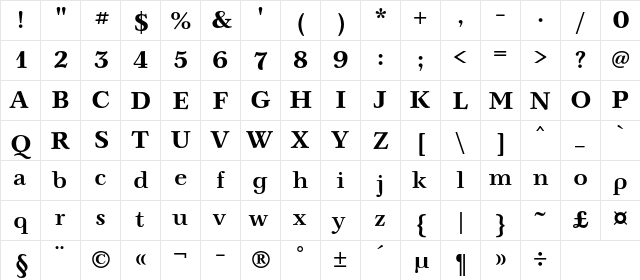
NevaC Bold
Design Context for NevaC Typeface
NevaC takes a measured approach to typography — its balanced proportions and neutral character make it a reliable workhorse for both digital and print work. The heavy weight commands attention and anchors typographic hierarchies.